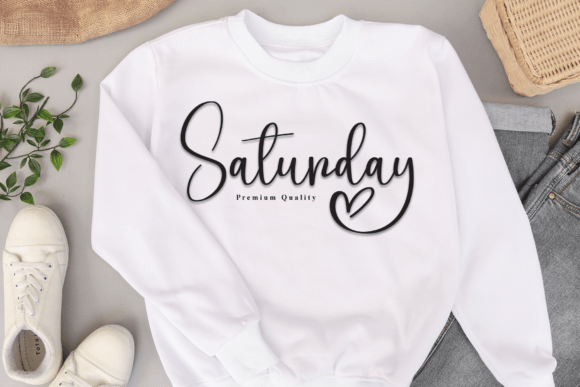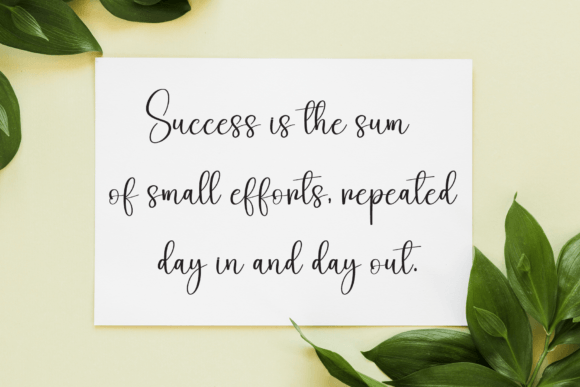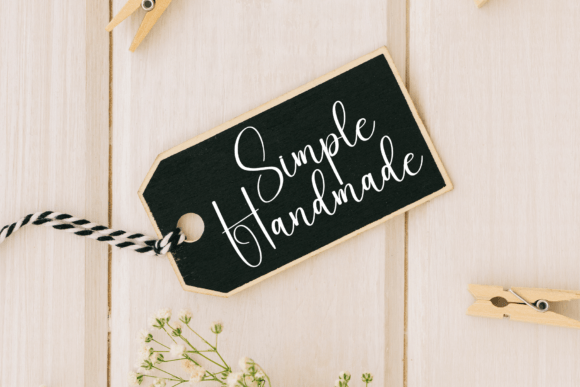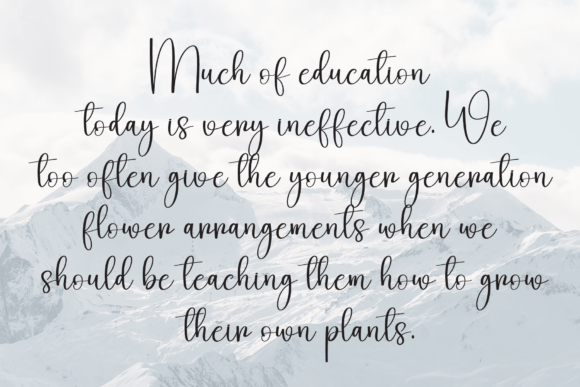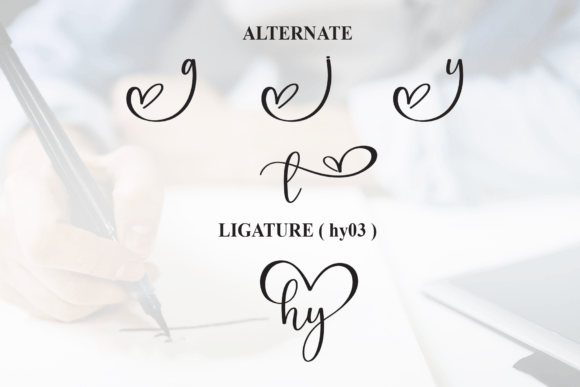
Introducing Autography Font: Elevate Your Creativity with Elegance
Are you a designer, crafter, or DIY enthusiast looking for a font that can add a touch of magic to your creative projects? Look no further than Autography Font, a beautiful script font designed to bring elegance and sophistication to your work. In this article, we’ll explore the features and benefits of Autography Font, and show you how it can help you turn your ideas into stunning works of art.
What is Autography Font?
Autography Font is a carefully crafted script font that combines the beauty of calligraphy with the versatility of digital design. With its flowing lines, intricate details, and elegant flair, Autography Font is perfect for a wide range of creative projects, from social media graphics and invitations to DIY crafts and art pieces.
Key Features of Autography Font
- Elegant Script Style: Autography Font features a beautiful, flowing script style that’s perfect for creating eye-catching headlines, titles, and quotes.
- Magical Touch: With its intricate details and subtle flourishes, Autography Font adds a touch of magic to any design or project.
- Versatile: Whether you’re designing for Instagram, creating DIY crafts, or working on a professional project, Autography Font is versatile enough to adapt to any style or format.
- Easy to Use: Autography Font is designed to be easy to use, even for those with limited design experience.
Uses for Autography Font
Autography Font is perfect for a wide range of creative projects, including:
- Social Media Graphics: Add a touch of elegance to your Instagram posts, Facebook graphics, and other social media content with Autography Font.
- DIY Crafts: Use Autography Font to create beautiful calligraphy scripts for DIY crafts, such as handmade cards, gift tags, and decorations.
- Invitations and Announcements: Create stunning invitations, announcements, and other formal documents with Autography Font.
- Art Pieces: Use Autography Font to create beautiful art pieces, such as quotes, poems, and other forms of creative writing.
Benefits of Using Autography Font
By using Autography Font, you can:
- Elevate Your Designs: Add a touch of elegance and sophistication to your designs and projects.
- Stand Out from the Crowd: Use Autography Font to create unique and eye-catching designs that stand out from the crowd.
- Save Time: With its easy-to-use design and versatile style, Autography Font can help you save time and effort on your creative projects.
- Inspire Your Creativity: Autography Font is designed to inspire your creativity and help you bring your ideas to life.
Tips for Using Autography Font
Here are some tips for getting the most out of Autography Font:
- Experiment with Different Sizes and Colors: Try out different sizes and colors to find the perfect combination for your design or project.
- Use it with Other Fonts: Combine Autography Font with other fonts to create a unique and eye-catching design.
- Pay Attention to Details: Take the time to adjust the font to your design or project, paying attention to details such as spacing and alignment.